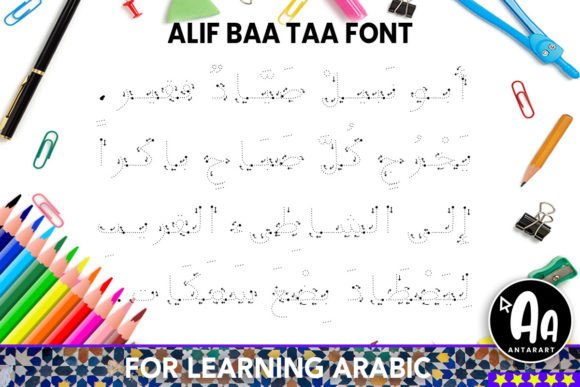
Discover the Magic of Alif Baa Taa Dotted Arrows Two Font
Imagine you’re a child, holding your first pencil and scribbling on a piece of paper. The lines and curves of your handwriting come together to form your first words, a language that holds the power to connect you with others. As you grow older, this language becomes a vital part of your identity, a bridge to your culture and heritage. For those who are interested in the Arabic language, there’s a tool that can make learning and teaching a breeze – Alif Baa Taa Dotted Arrows Two Font.
This beautiful handwritten font is more than just a font; it’s a learning resource that can be used to create thousands of Arabic worksheets using any software. For designers, it’s a valuable asset that can be used to add a touch of authenticity to Arabic language projects. With Alif Baa Taa Dotted Arrows Two Font, you can bring the beauty of Arabic script to life and help others learn this beautiful language.
Alif Baa Taa Dotted Arrows Two Font Key Features
- Font Type: Alif Baa Taa Dotted Arrows Two is a handwritten font, designed to resemble handwritten Arabic script with dotted arrows.
- Language Support: Supports the Arabic language, with full support for complex Arabic script and diacritical marks, making it ideal for Arabic-language publications and websites.
- Unique Characteristics: The font’s distinctive dotted arrows and handwritten style give it a unique, personal touch, making it suitable for creative and artistic projects.
- Font Weight and Style: Available in regular and bold weights, with italic and oblique styles, providing flexibility for different design applications.
Alif Baa Taa Dotted Arrows Two Font Review
Overall, I think the Alif Baa Taa Dotted Arrows Two Font is an interesting choice for designers looking to add a touch of cultural flair to their work. ✨ The font’s use of dotted arrows to connect letters creates a unique visual flow that can be quite engaging.
- ✨ The font’s eclectic feel can add a lot of character to designs, making it perfect for projects that need a bit of personality.
- ✨ The dotted arrows can help to guide the viewer’s eye through the text, making it easier to read and understand.
However, I do have a few concerns about the font’s limitations. ⚠️ The most notable issue is that the font may be difficult to read at smaller font sizes, as the dotted arrows can become overwhelming and make the text look cluttered. Additionally, the font’s unique aesthetic may not be to everyone’s taste, and some designers may find it distracting or difficult to work with.
Overall, I think the Alif Baa Taa Dotted Arrows Two Font is a solid choice for designers who are looking to add some visual interest to their work. However, it may not be the best choice for projects that require clear, concise communication, or for designers who prefer a more traditional font aesthetic.
The Alif Baa Taa Dotted Arrows Two Font is ideal for:
- Creatives and designers looking for a unique and exotic font.
- Language learners and teachers who need to display Arabic text.
- Travelers and adventurers who want to add a touch of Middle Eastern flair to their designs.